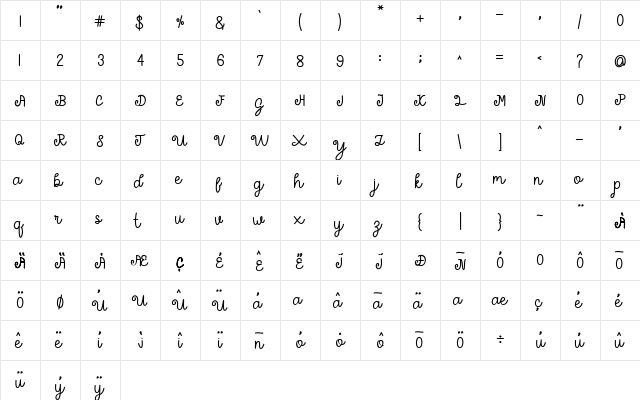
heartbeat Regular
Design Context for heartbeat Typeface
heartbeat is a composed and adaptable typeface that performs quietly and consistently across a wide range of design contexts.